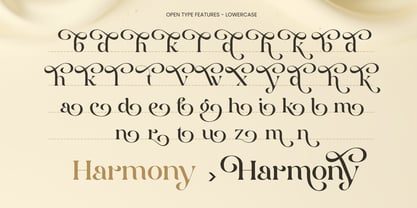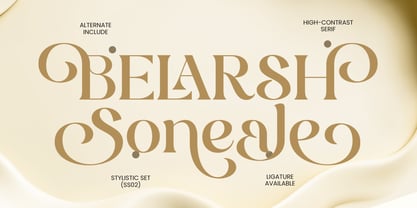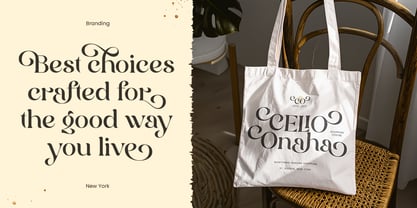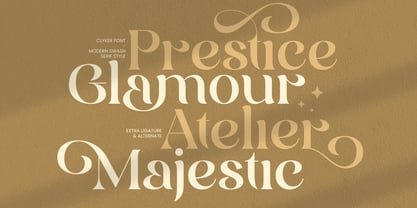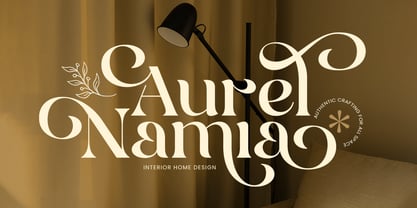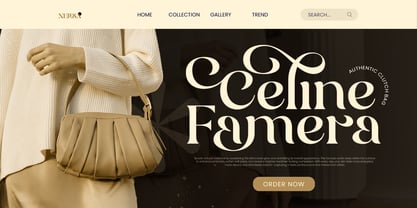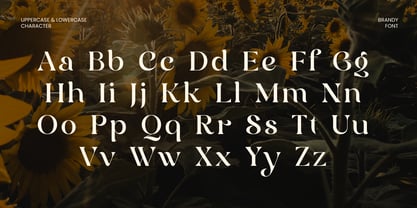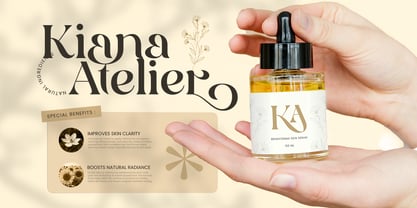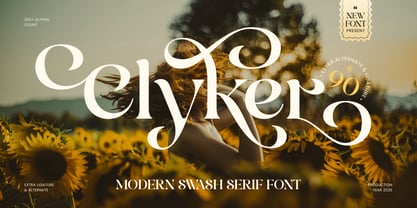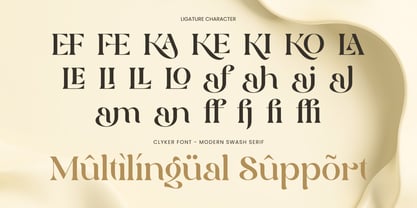
Clyker
Clyker is a modern swash serif font crafted to deliver elegance, movement, and a refined luxury feel. Its balanced serif construction paired with graceful swash details creates a sophisticated tone that feels stylish, premium, and visually expressive.
Designed for branding-focused typography, Clyker works beautifully across logos, wordmarks, boutique identities, editorial headlines, beauty packaging, website headers, signage, posters, and social media visuals. The swash elements add a signature-like flair that elevates names and headlines while maintaining clarity and polish.
Whether you’re building a luxury brand identity, a modern editorial layout, or an elegant promotional design, Clyker brings refined character and contemporary serif beauty to both digital and print projects.
Inspiration Behind Clyker
Clyker is inspired by modern luxury branding and editorial typography where elegance meets expressive detail. The design blends clean serif structure with flowing swashes to create a refined yet distinctive look—ideal for premium logos, stylish headlines, and brand systems that need a memorable, graceful voice.
Clyker Font Features
• Modern serif letterforms with elegant swash accents
• Designed for logo design and refined branding systems
• Strong display presence for headlines and name-based typography
• Uppercase, lowercase, numerals, and punctuation included
• OpenType features for alternates and polished typography
Perfect For
• Luxury logos and boutique brand identity
• Editorial headlines, magazine covers, and lookbooks
• Beauty, fashion, and premium product branding
• Website headers, banners, and social media graphics
• Posters, signage, and elegant promotional layouts
Multilingual Support
Create elegant brand moments with Clyker - crafted for modern swash serif beauty and premium visual impact. ✨